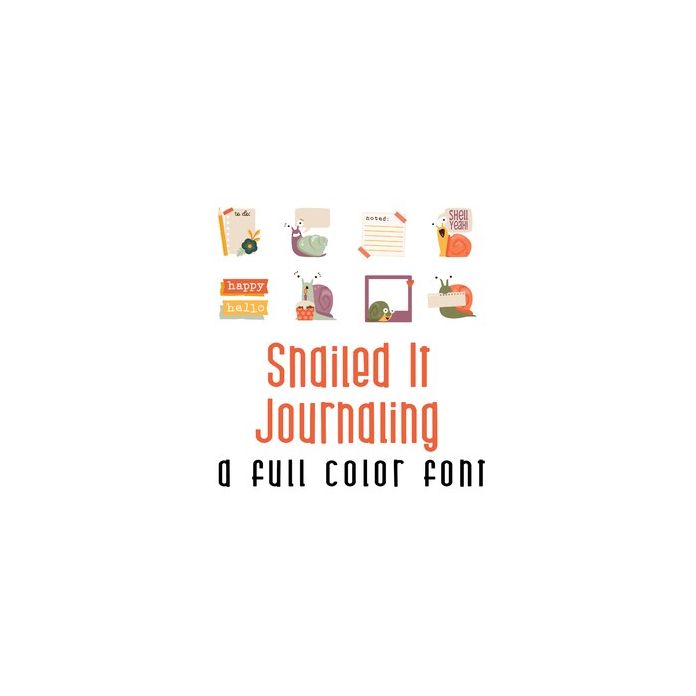
This adorable full-color doodlebat font features 26 snail themed journaling items, frames and more! Perfect for cards, crafts, gifts, decor, planner stickers, scrapbook pages and more!